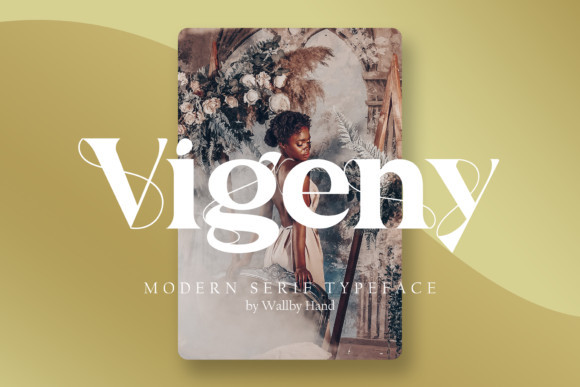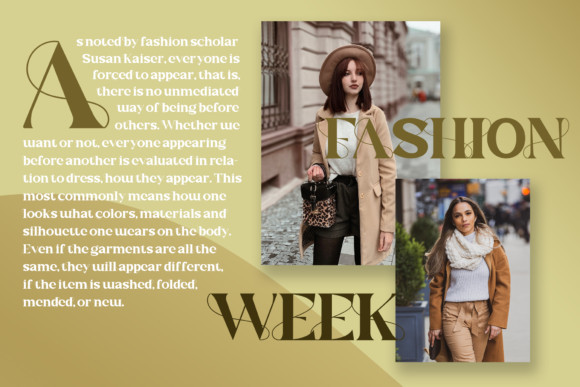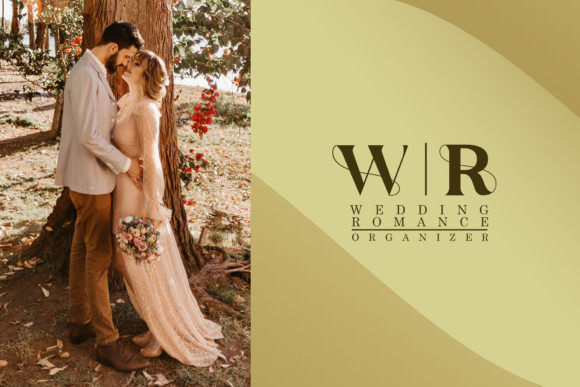
Vigeny Font
Vigeny is a modern serif with unique characters. This beautiful and professional typeface is suitable for posters, headlines, block letters, subheadings, logo designs, branding and so much more.